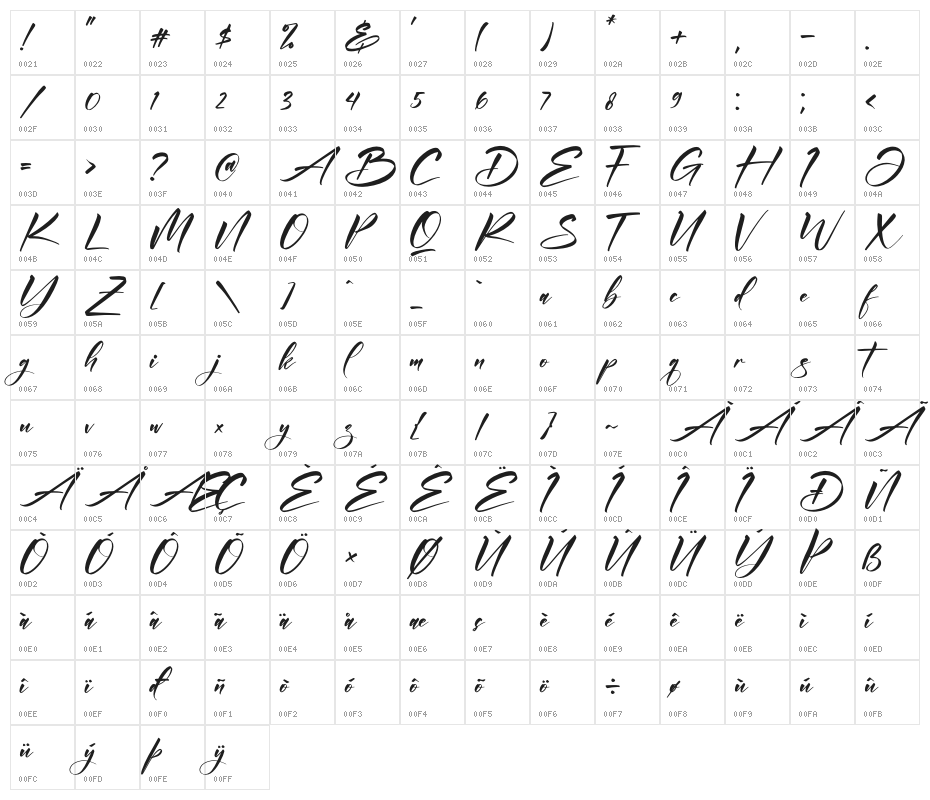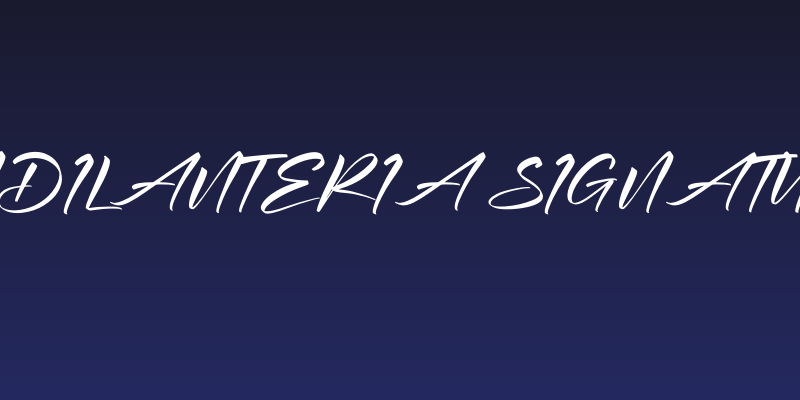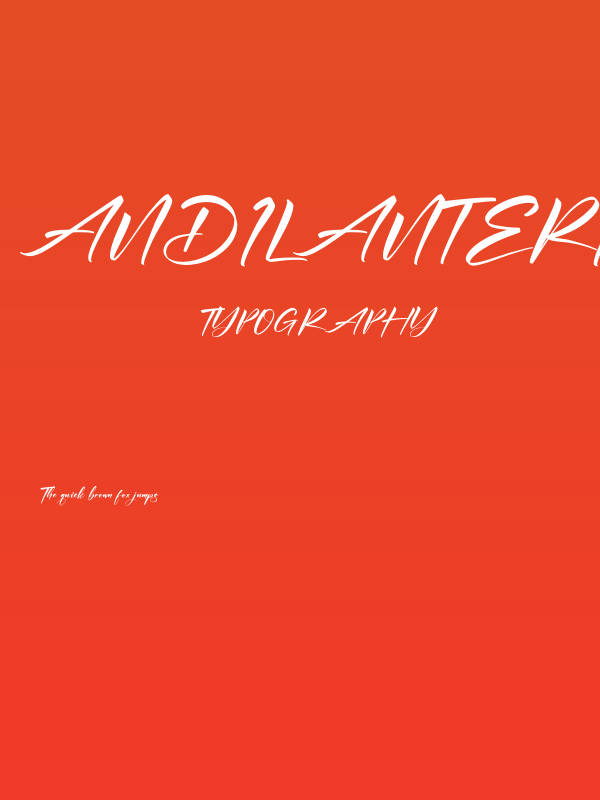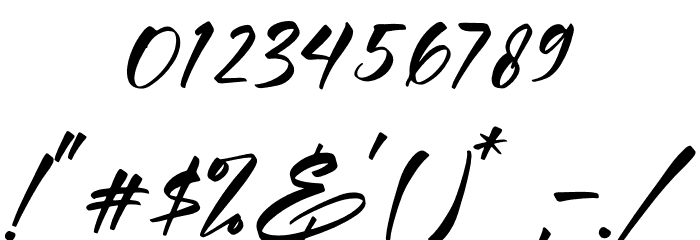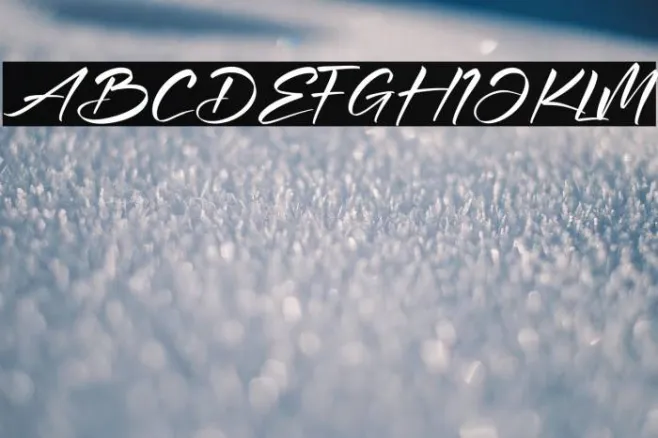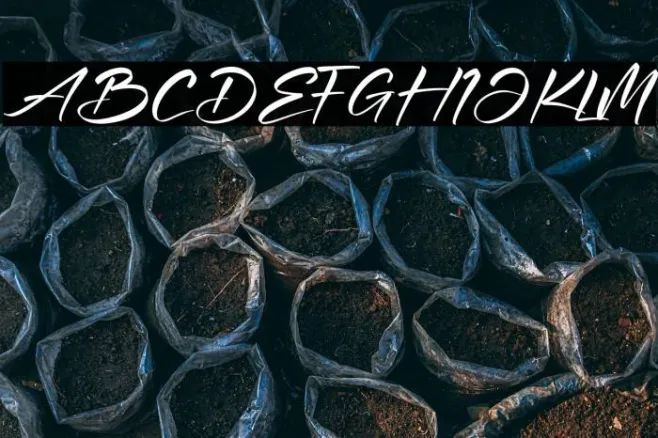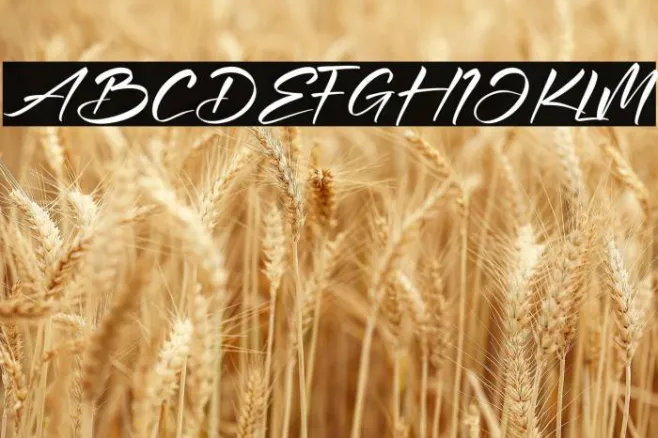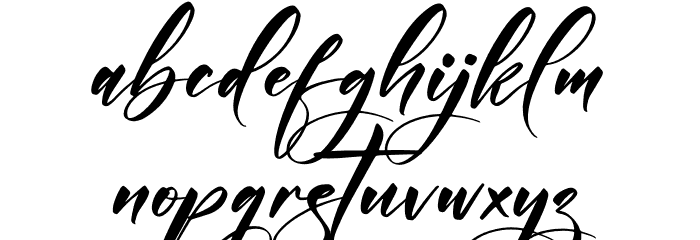
Andilanteria Signature Font
Andilanteria Signature Description
This font exudes elegance and sophistication with its fluid, cursive style. The characters are intricately designed, featuring smooth curves and varying stroke widths that create a dynamic and graceful appearance. The uppercase letters are bold and prominent, while the lowercase letters maintain a delicate and flowing form. Numbers and special characters are crafted with the same attention to detail, ensuring a cohesive look across all elements. This font is perfect for projects that require a touch of class and refinement, such as invitations, branding, and high-end product packaging.